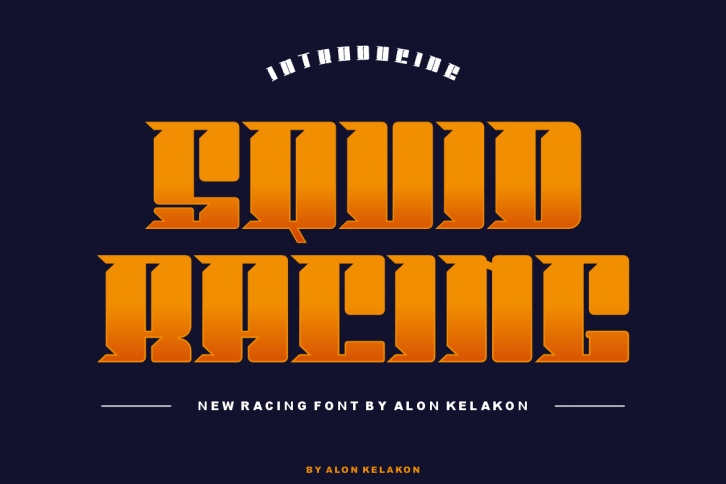
Squid Racing is a chubby and unique slab serif font. Ready to use for your design like labeling, clothing, movie screen, poster, movie title, gigs, album covers, logos, and much more.